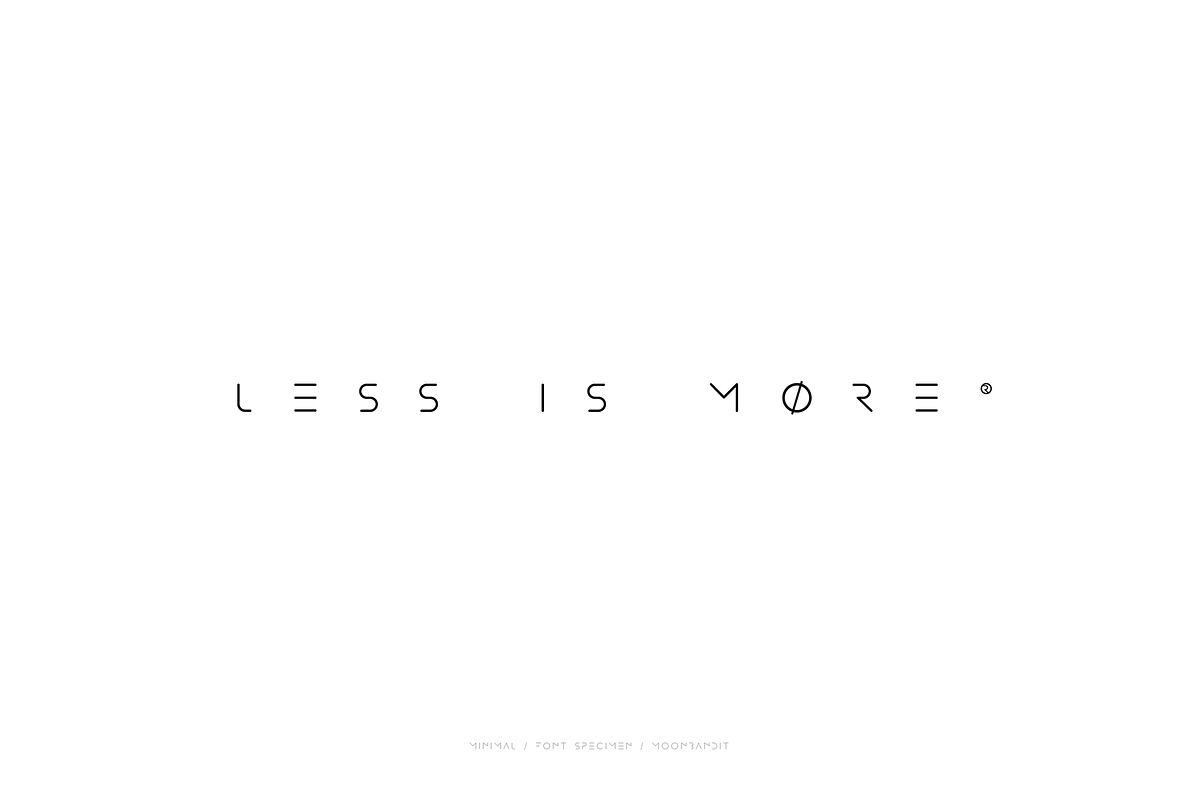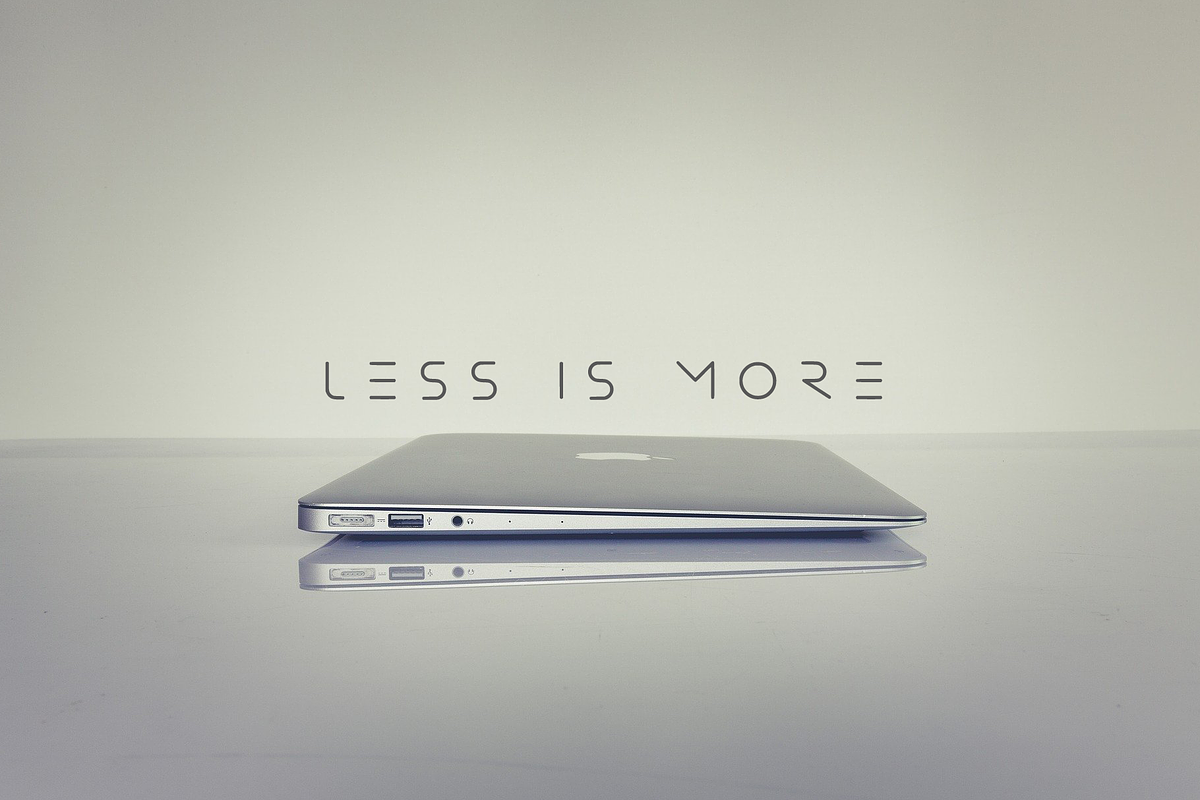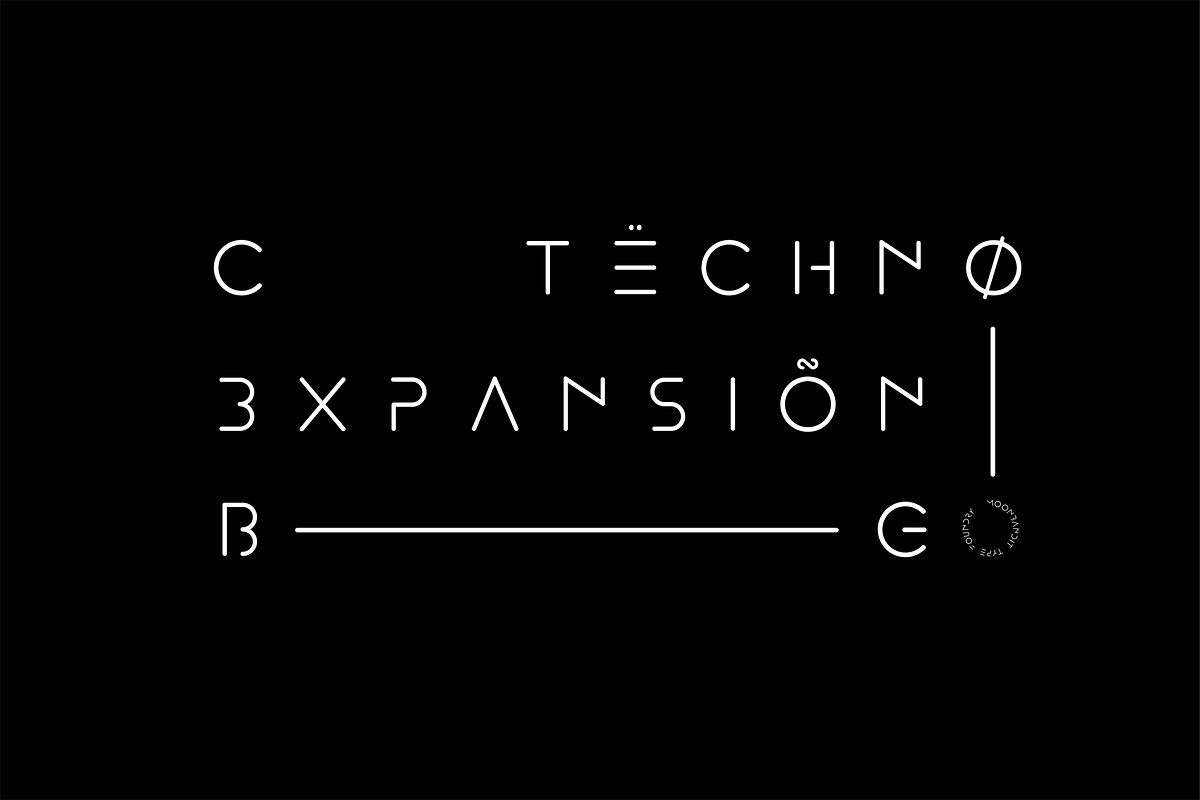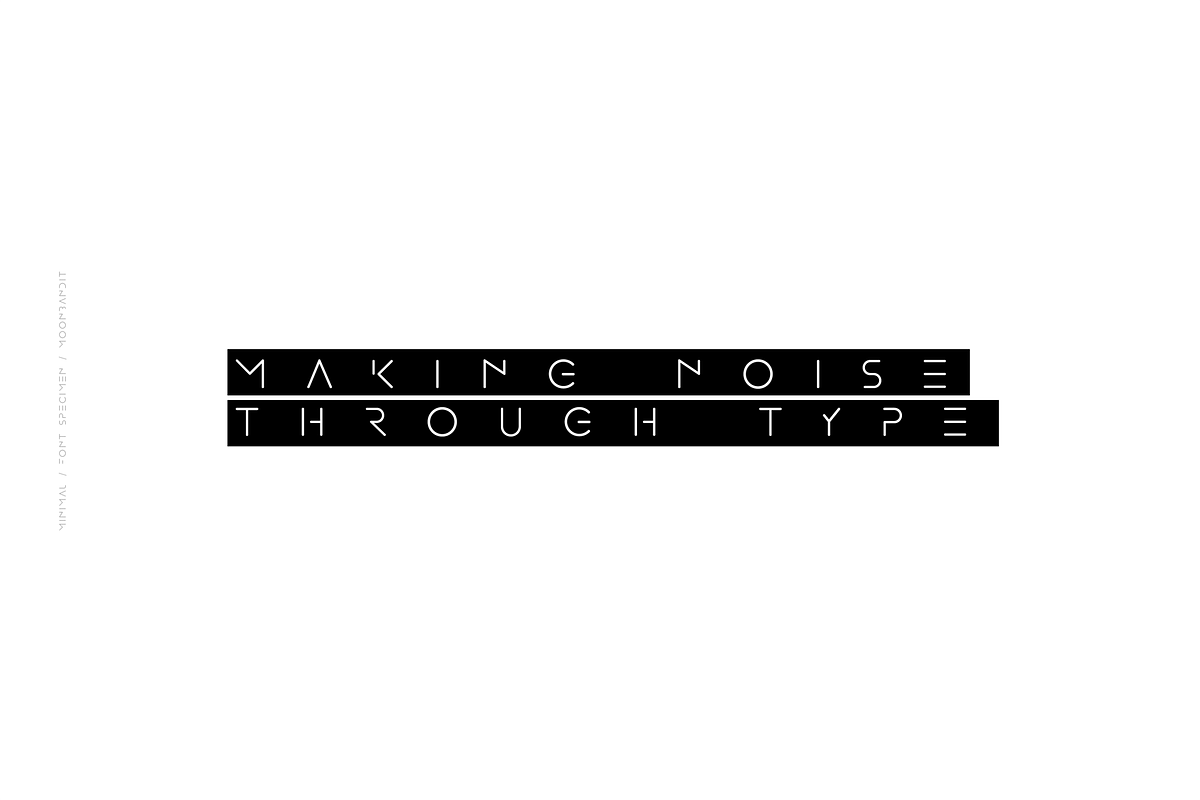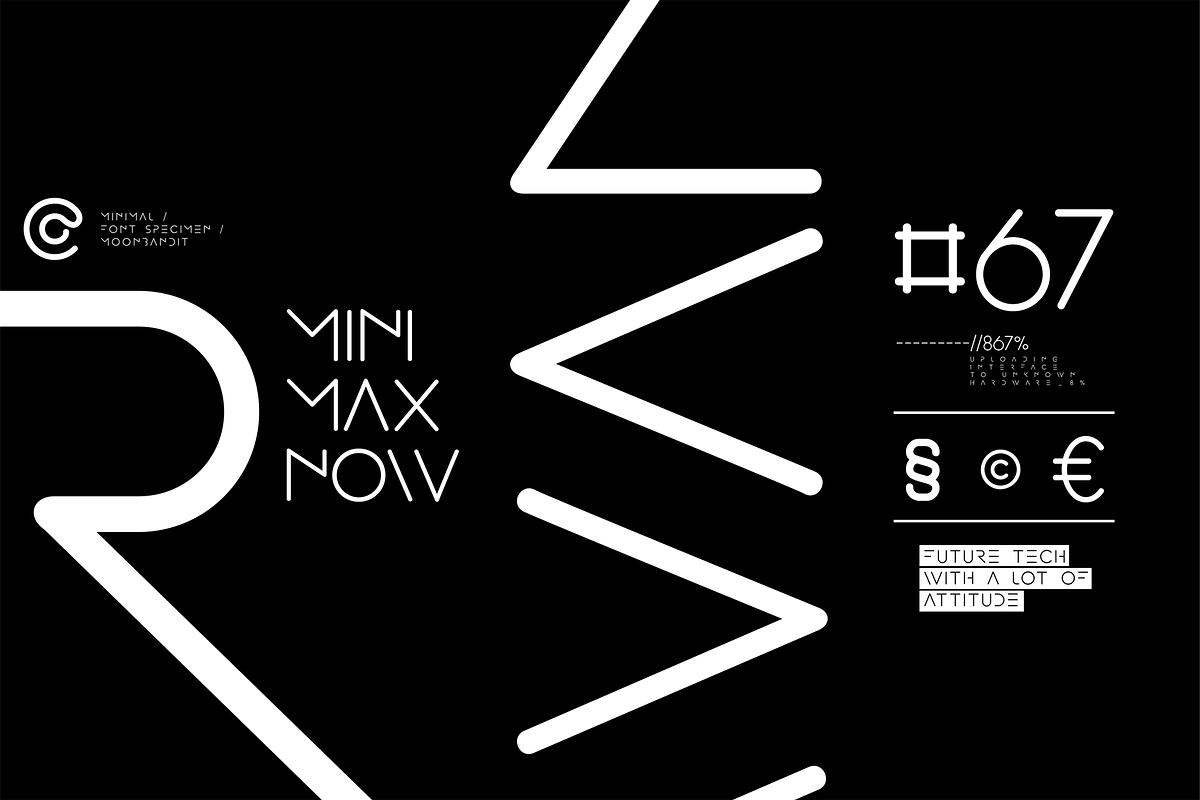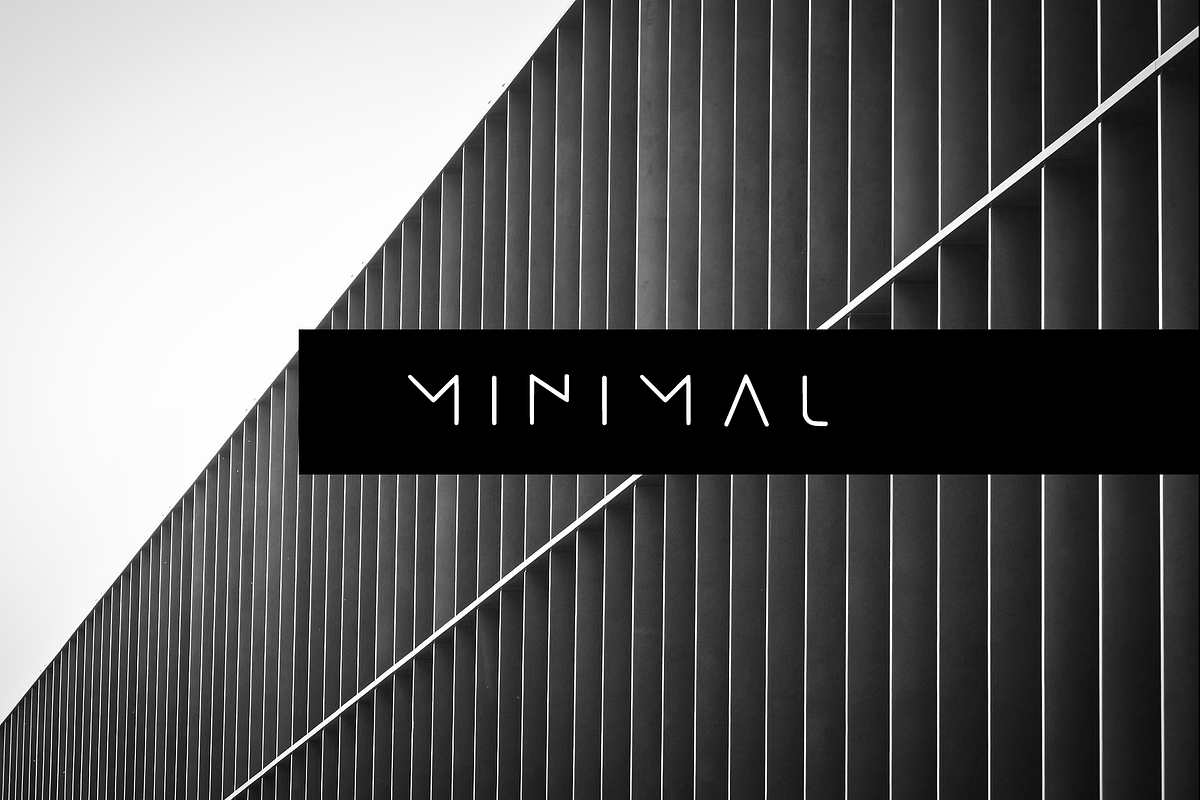
MINIMAL - modern futuristic font
A minimal sans serif vector display font with a modern technological and futuristic feel
Why MINIMAL - modern futuristic font is worth a look
MINIMAL - modern futuristic font by MoonBandit fits naturally into Branding, posters, packaging, typography.